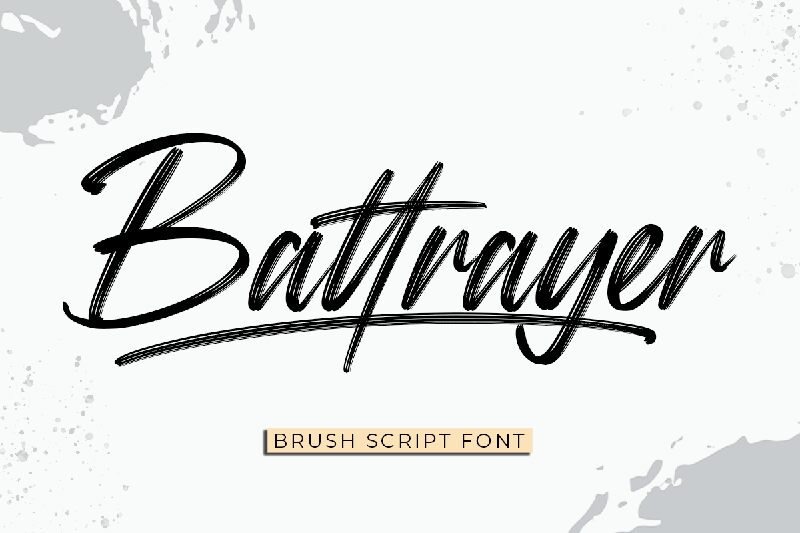
Battrayer Swash, a stunning addition to the Battrayer font family designed by Kong Font, combines elegance with a touch of playfulness. This brush-style font boasts semi-light weight, making it perfect for projects that seek a refined yet dynamic look.
With its unique set of swashes, Battrayer Swash effortlessly adds flair and personality to any design. Whether you're working on wedding invitations, fashion editorials, or branding materials for creative agencies, this font will elevate your project and captivate your audience. Unleash your creativity and let Battrayer Swash take center stage in your next design endeavor.